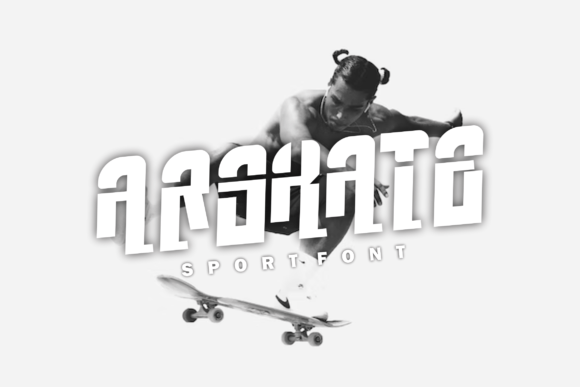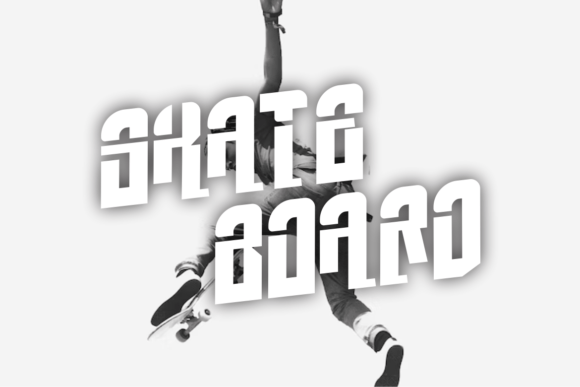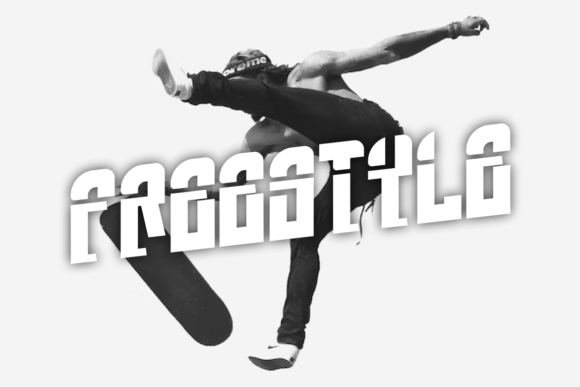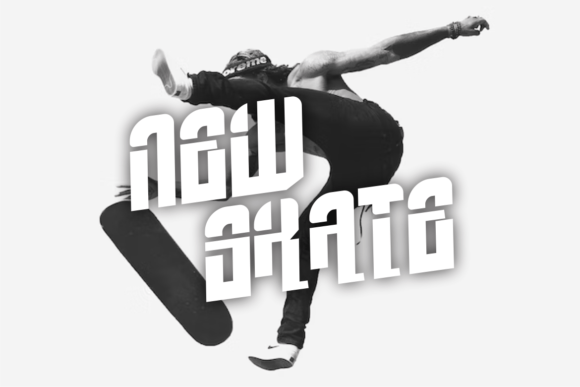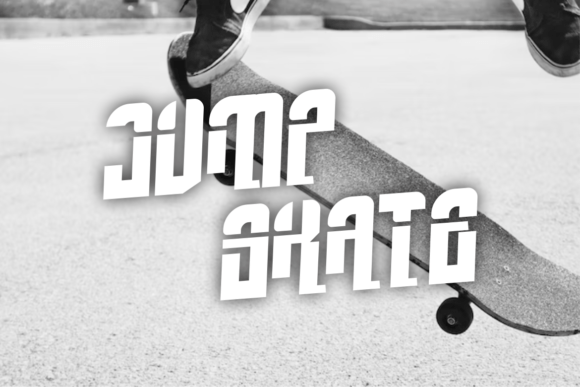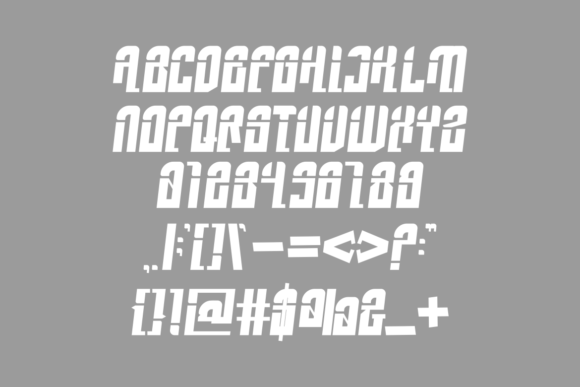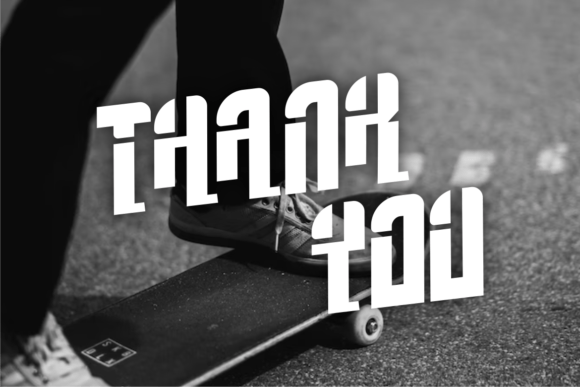
Arskate
Arskate: A Futuristic Slab Serif Font
Arskate is a futuristic slab serif font that combines beautiful, modern, and forward-looking design elements. This versatile typeface is perfect for various projects, from signatures and stationery to branding and packaging design.
Key Features of Arskate
• Futuristic Design: Offers modern, forward-looking letterforms.
• Beautiful Style: Brings sophisticated aesthetics to designs.
• Modern Appeal: Features contemporary design elements.
• Versatile Application: Adapts well to numerous design contexts.
Best Uses for Arskate
Thanks to its versatile characteristics, Arskate works especially well for:
When using Arskate in your designs, keep these tips in mind:
• Try it for headlines or display text to showcase its futuristic style.
• Use different sizes to highlight its modern features.
• Pair with simpler fonts for body text to create balance.
• Let its versatility enhance both contemporary and forward-looking projects.
To sum up, Arskate is an excellent choice for designers seeking a futuristic and beautiful slab serif font. Its versatility makes it perfect for a wide range of projects. Whether you’re creating wedding materials, designing logos, or developing branding packages, Arskate offers the perfect blend of contemporary style and futuristic sophistication.
Furthermore, Arskate’s distinctive design allows it to shine in contexts where both modernity and innovation are key. For instance, from stationery to website headers, this font can elevate your projects with its forward-looking style. Also, its futuristic yet readable appearance works particularly well in designs that aim to make a sophisticated impact.
In conclusion, Arskate truly captures the essence of futuristic design in slab serif typography. Its versatility across different applications shows how well it can serve various creative needs. Therefore, for those wanting to add a touch of future-forward sophistication to their work, Arskate can enhance any design with its distinctive style. Ultimately, it’s perfect for designers aiming to make a modern, futuristic impact across a wide range of creative projects.